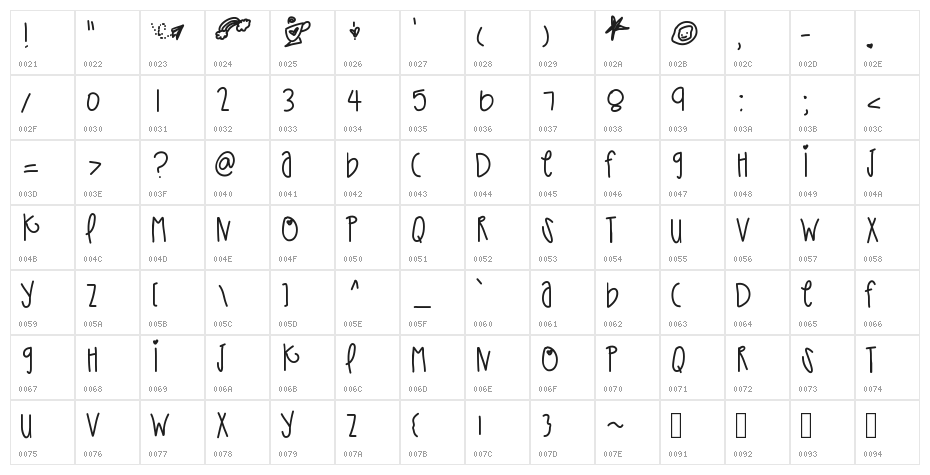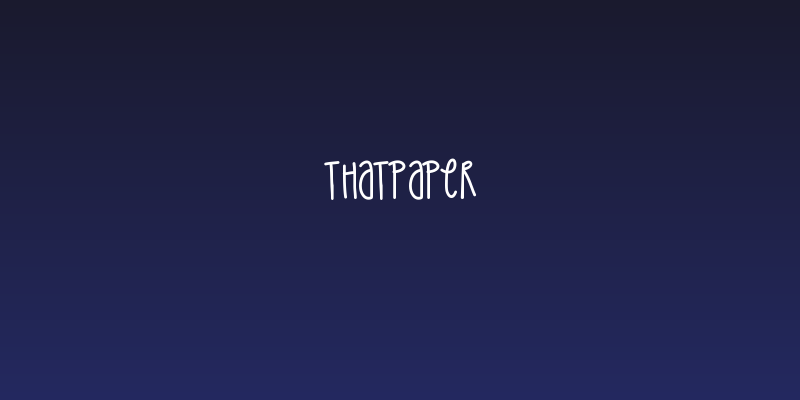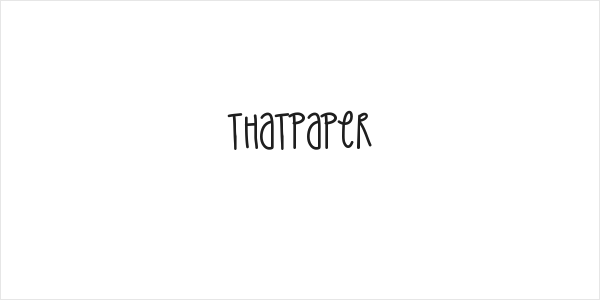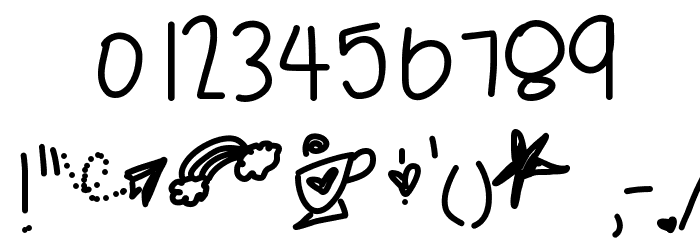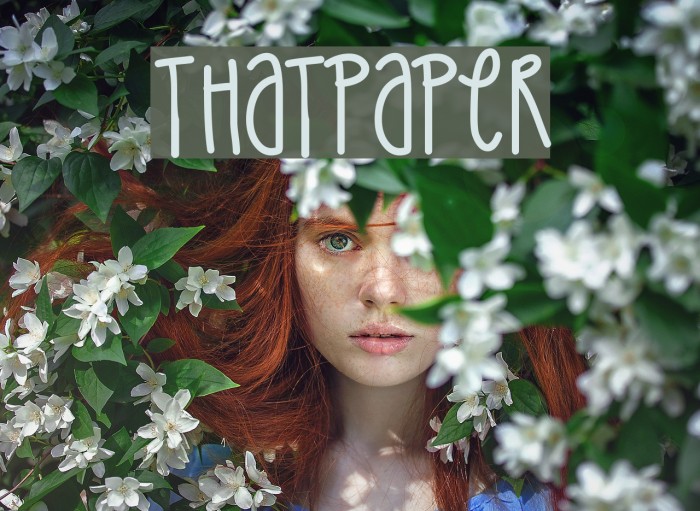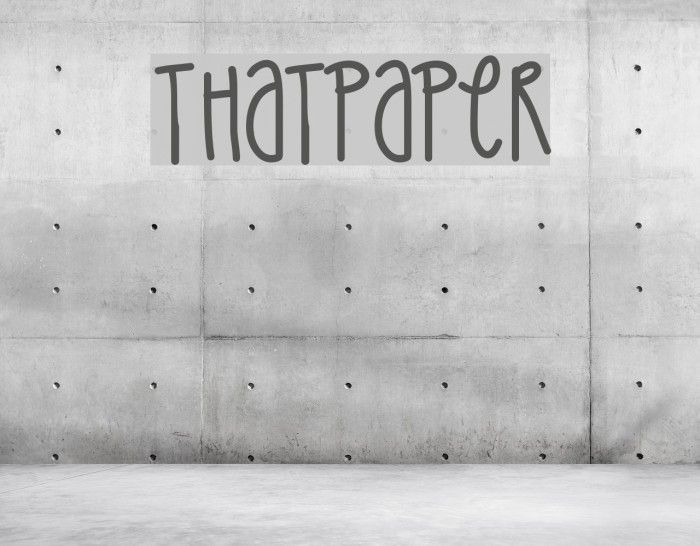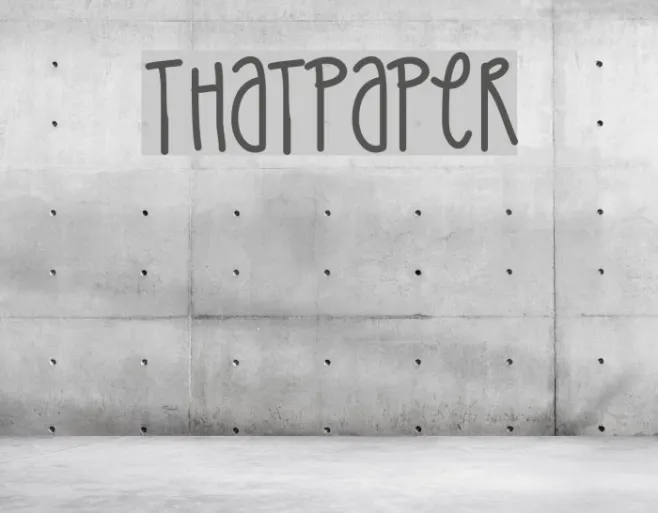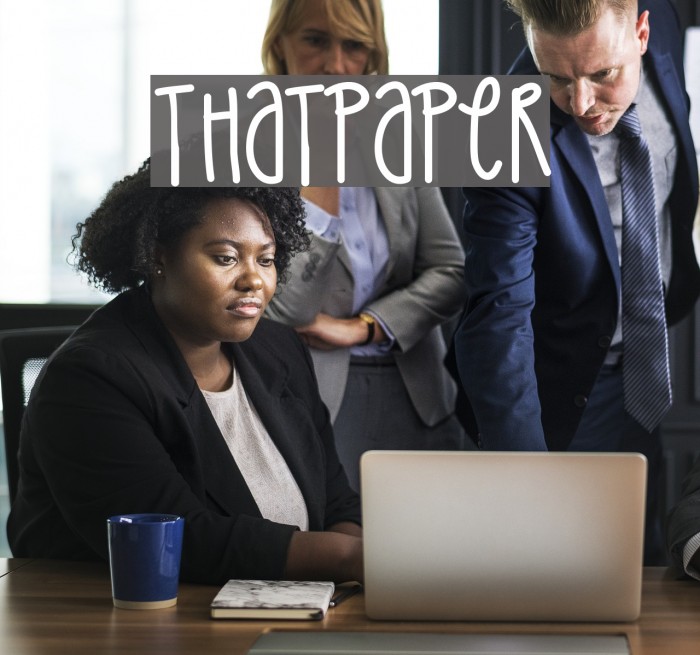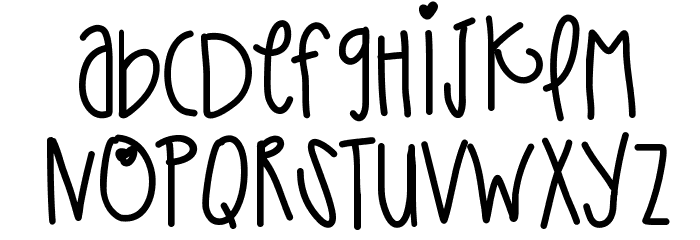
ThatPaper Font
ThatPaper Description
This playful and whimsical font features a handwritten style with a casual and friendly appearance. The letters are characterized by their smooth, flowing lines and slightly irregular shapes, giving them a charming and approachable feel. The uppercase and lowercase letters maintain a consistent style, with some letters featuring unique embellishments like hearts. The numbers are bold and clear, matching the overall aesthetic of the alphabet. Special characters include a variety of fun and decorative symbols, adding to the font's versatility and appeal. This font is perfect for projects that require a personal touch, such as greeting cards, invitations, or children's book illustrations.